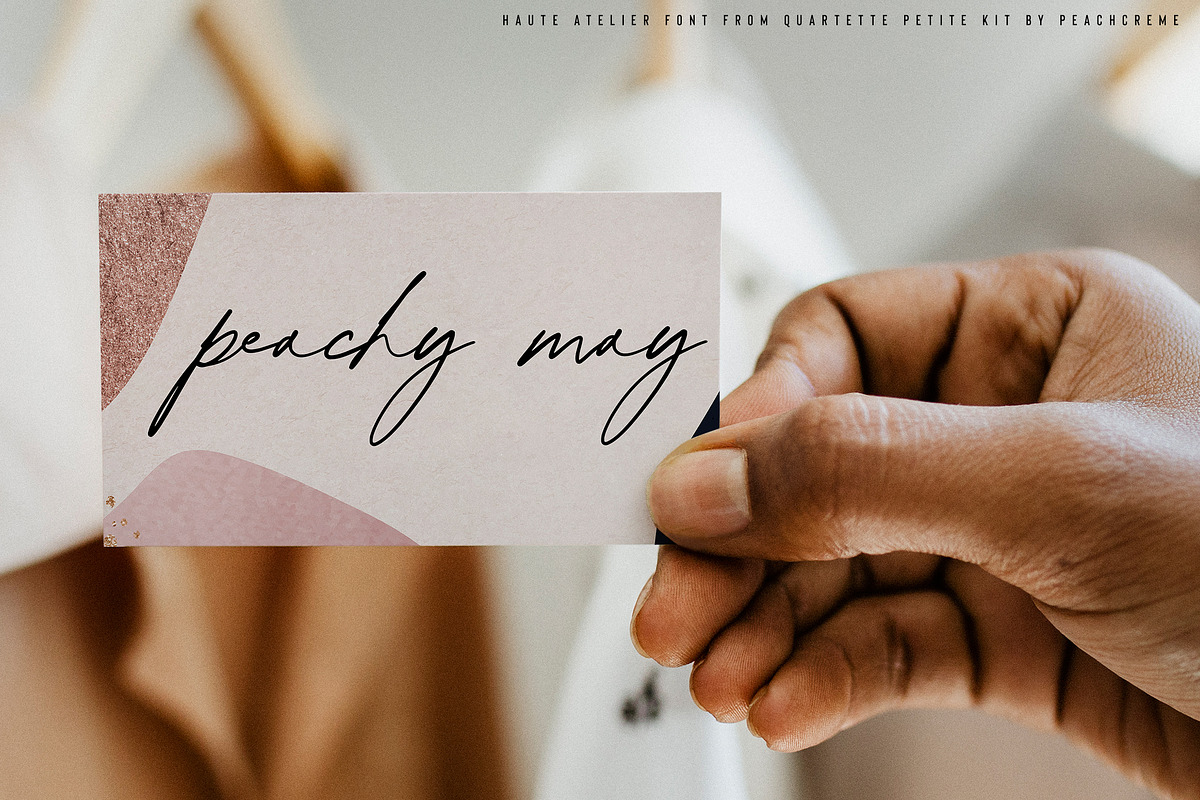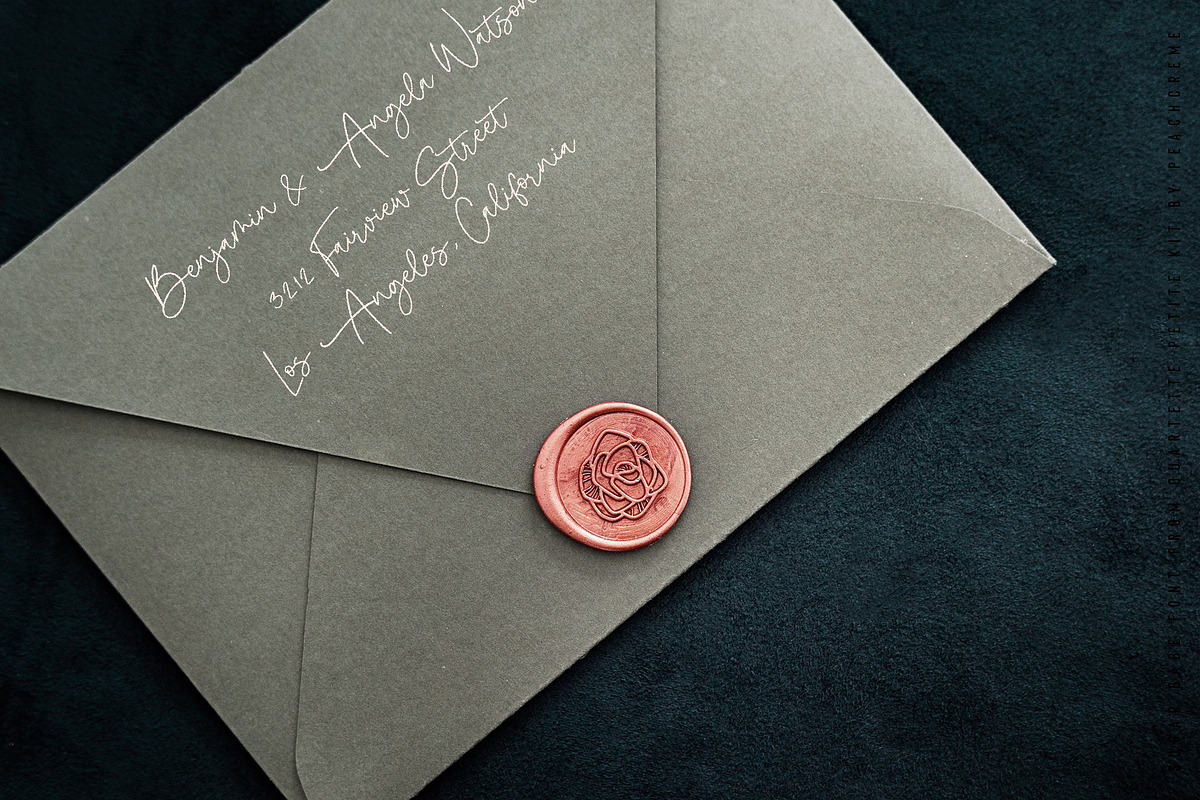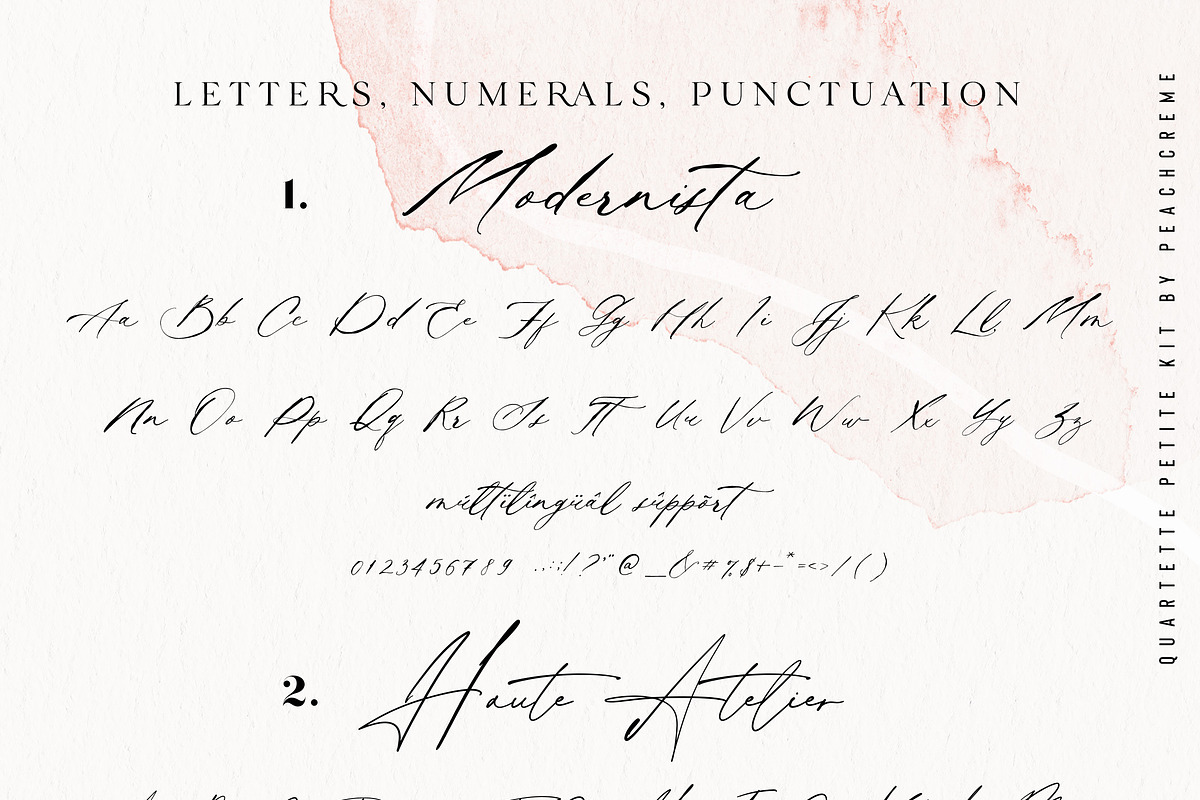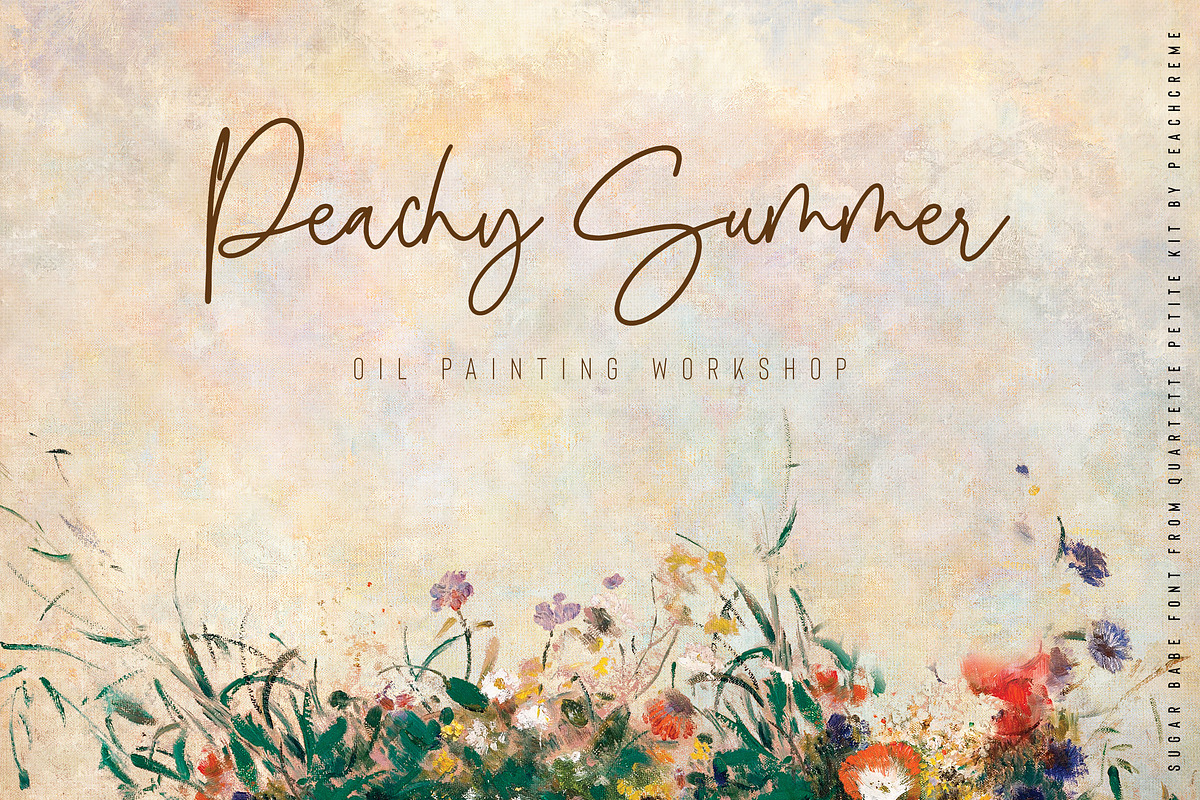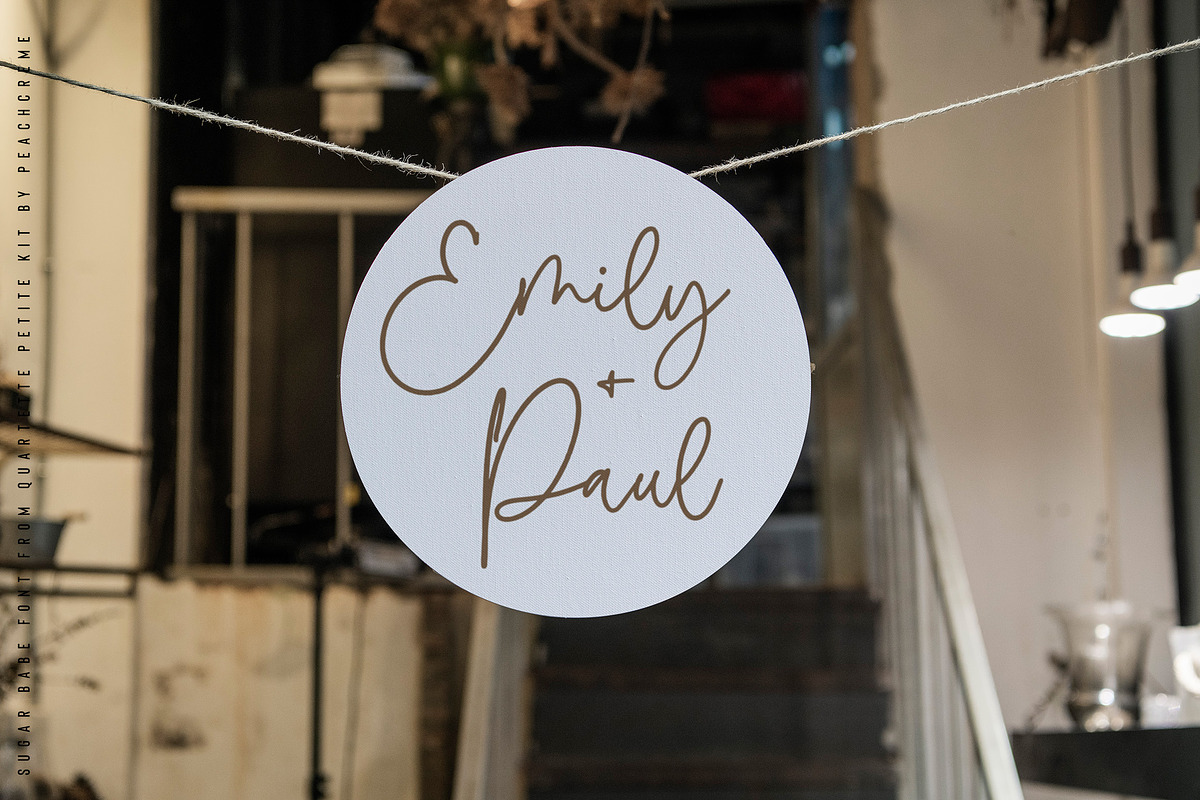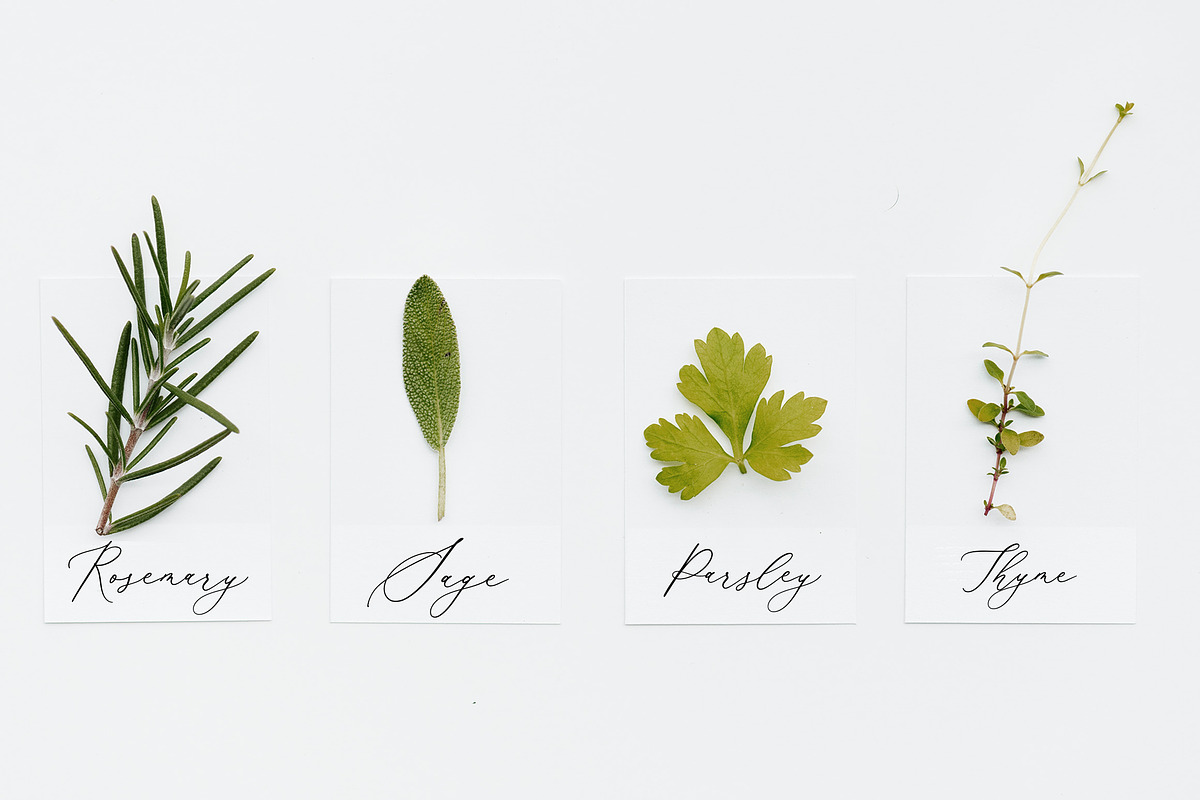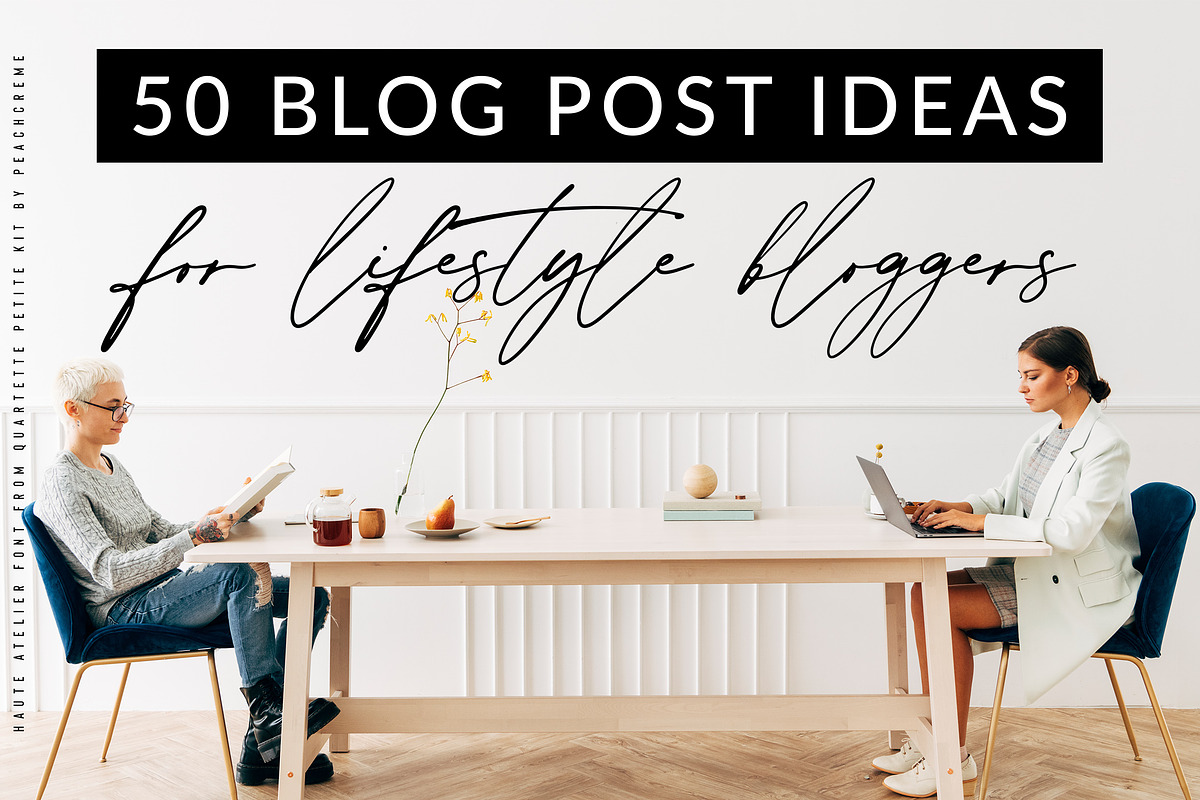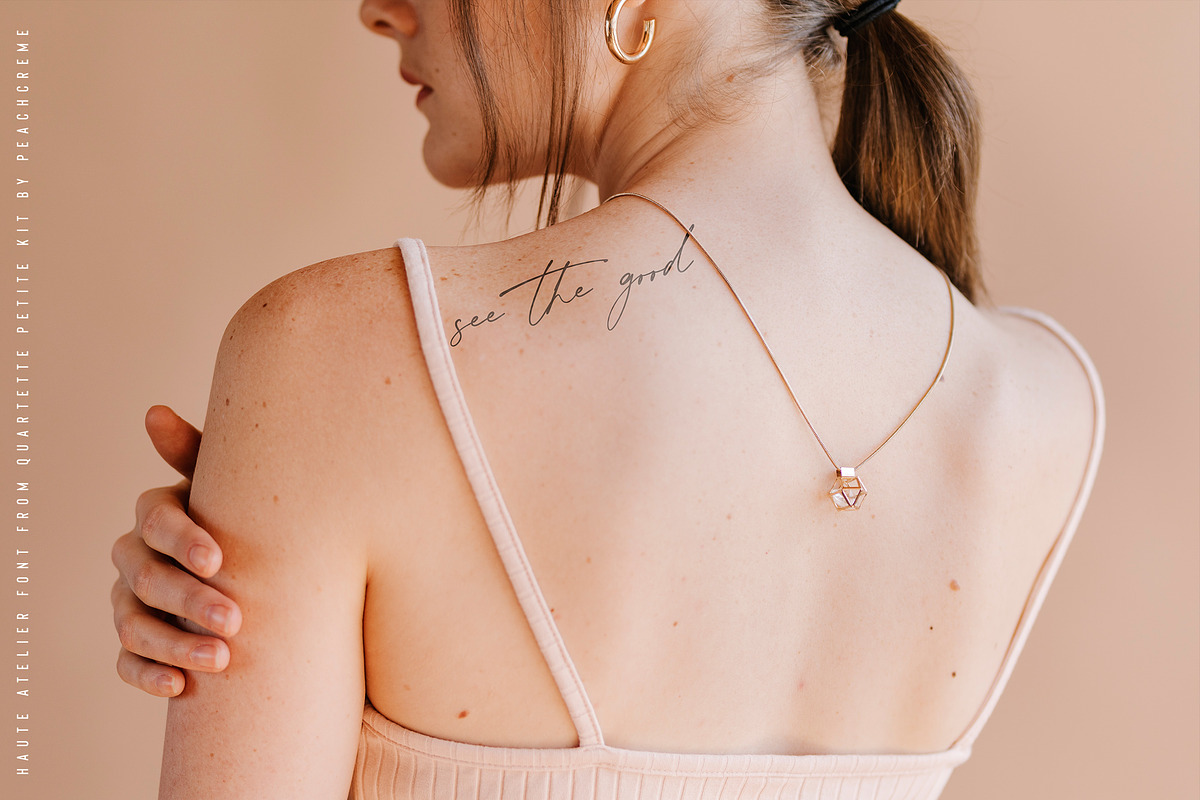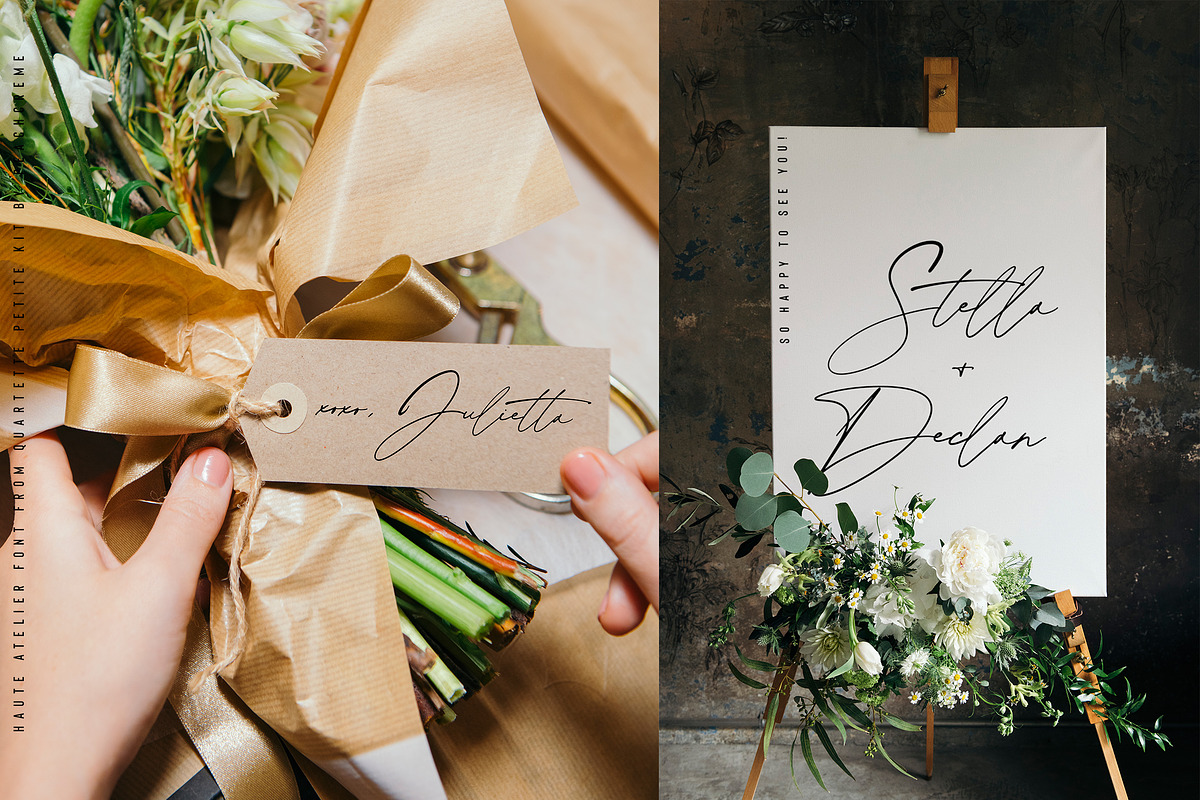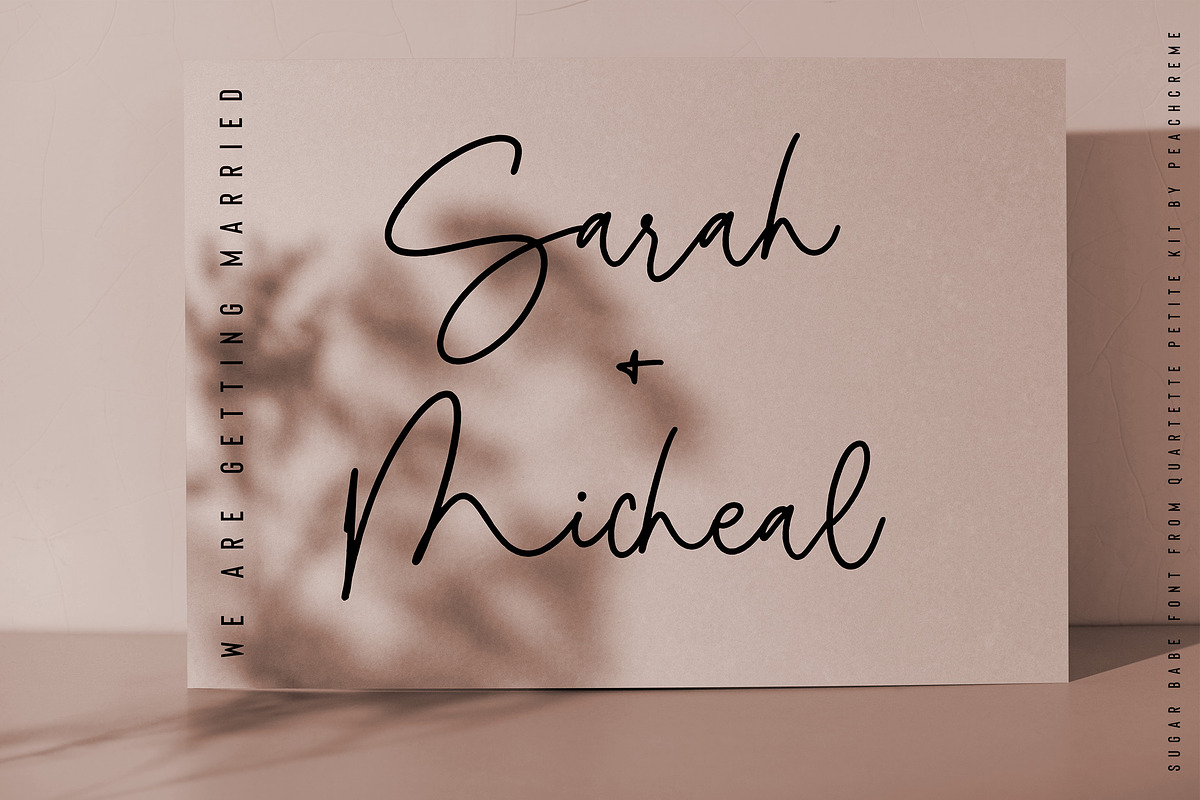
Voilà! Presenting our new petite kit, including 4 different style script fonts.
1. Modernista
boho, moody, rustic
2. Haute Atelic
stylish, sleek, chic
3. Elegantessa
elegant, airy, refind
4. Sugar Babe
trendy-shmendy
Following international symbols support: ÀÁÂÃÄÅĄÇĆÈÉÊËĘÌÍÎÏÐÑŃŁÒÓÔÕÖØÙÚÛÜŚŠŸÝŹŻŽßàáâãäåçèéêëìíîïðñòóôõöøùúûüýÿąćęłńśšźżž